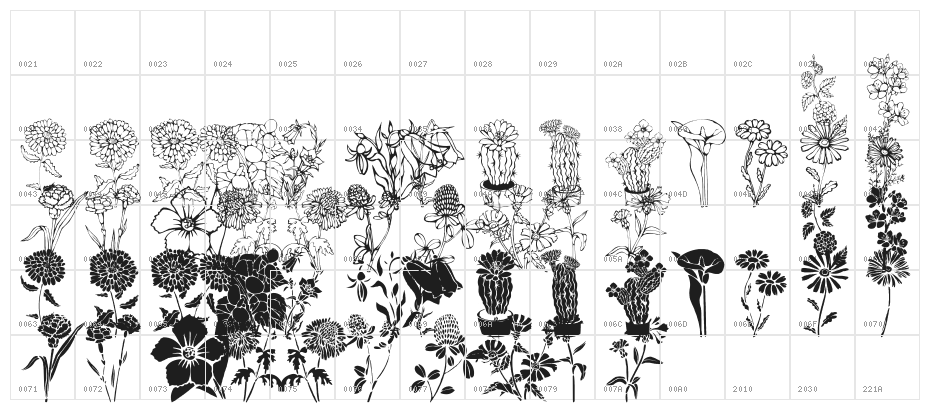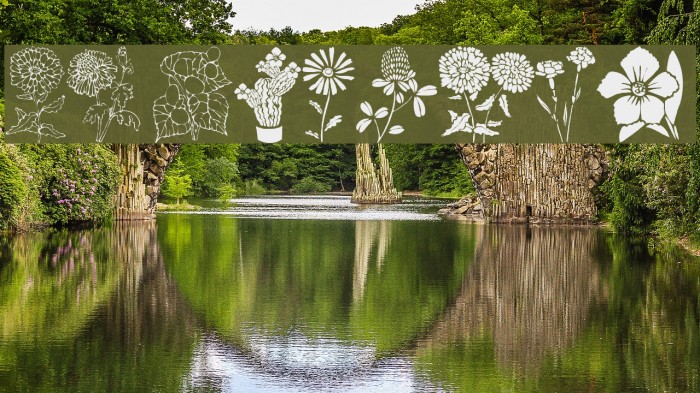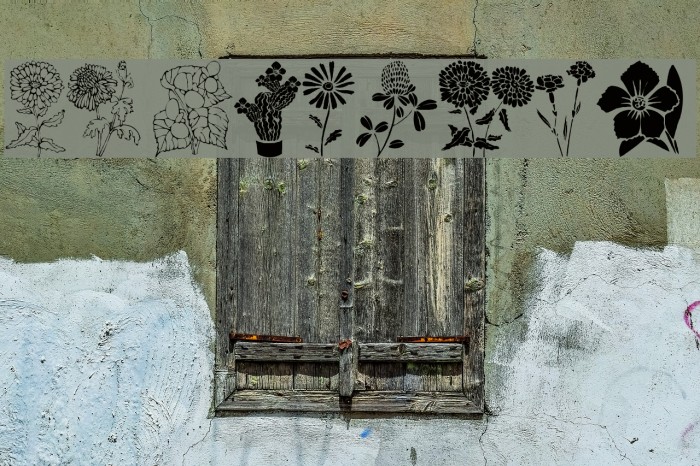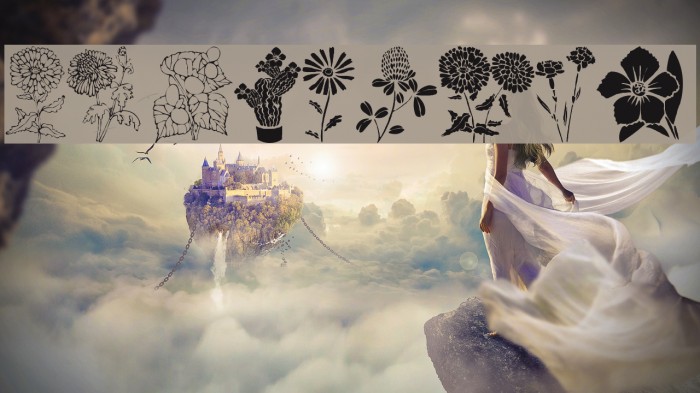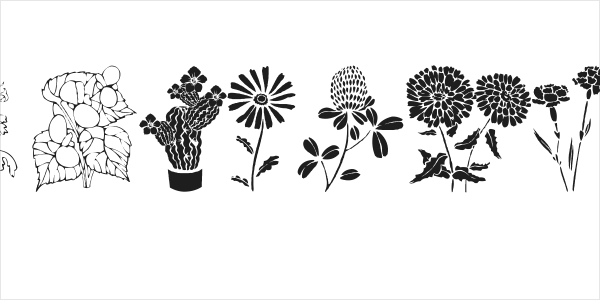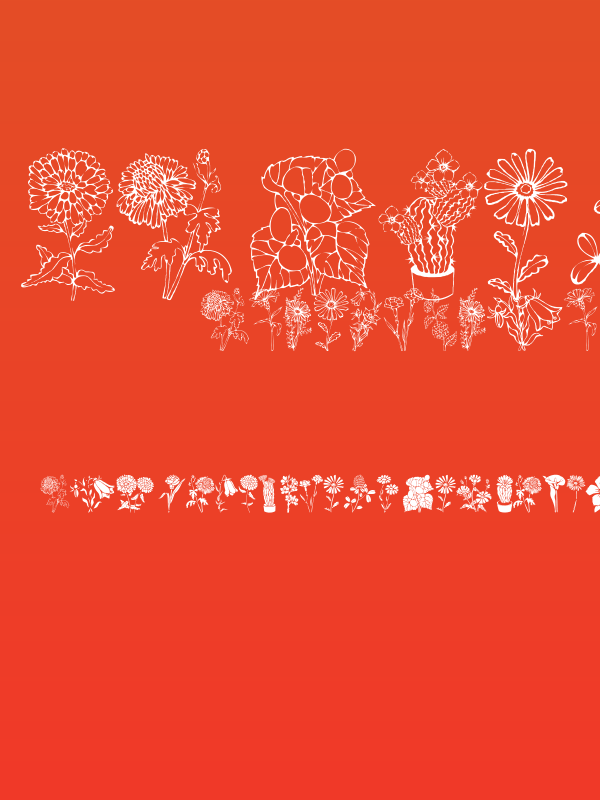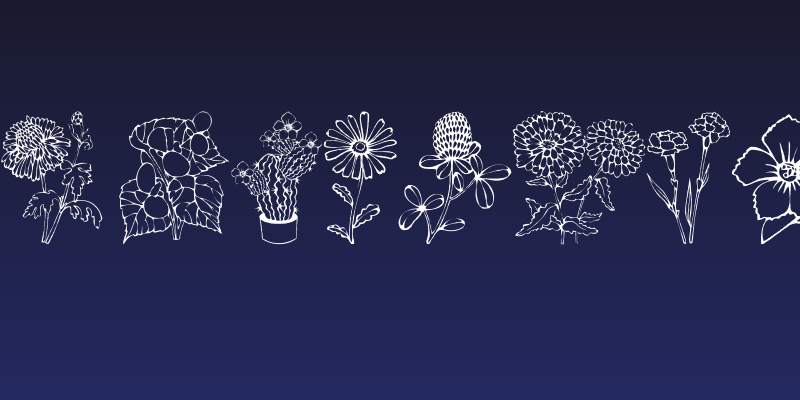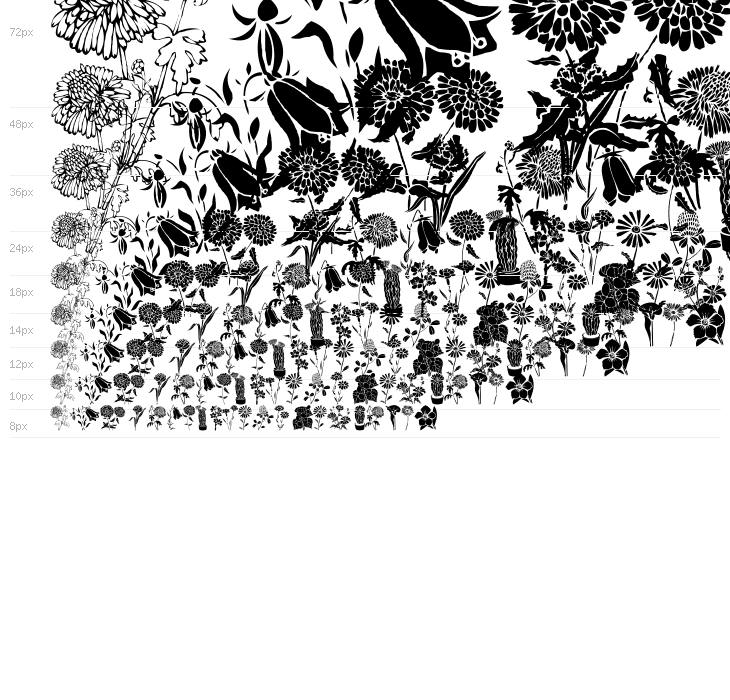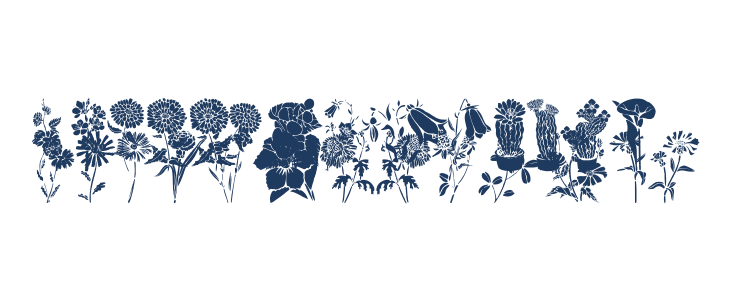
DT Flowers 1 Font
DT Flowers 1 Description
A decorative display set featuring detailed floral illustrations in both outline and filled styles, with each character represented by a unique flower or plant drawing. The glyphs are highly ornamental and artistic, emphasizing organic shapes and botanical details.
| Overall Style | Decorative, Artistic, Botanical |
| Use Case | Logos, Headlines, Decorative text, Themed projects |
| Proposed Projects | Greeting cards, wedding invitations, botanical posters, decorative headings, scrapbooking, branding for florists. |